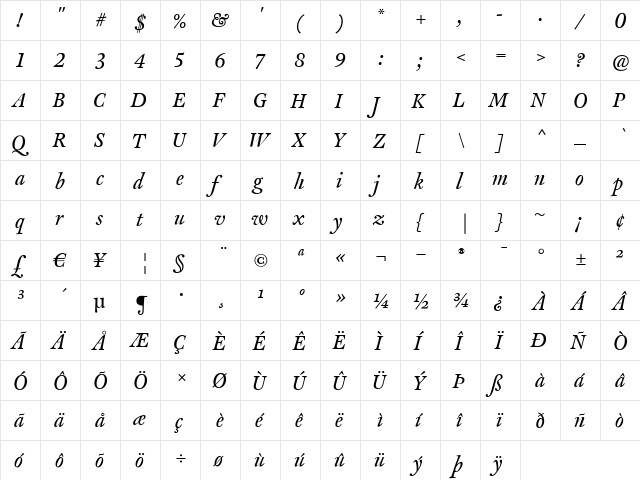
CliffordEighteen Italic
Italic · Akira Kobayashi, . Published by FontShop International. FontFont Release  ·
Design Context for CliffordEighteen Typeface
CliffordEighteen offers clean, dependable letterforms without strong stylistic allegiance, making it a practical choice for designers who need flexibility. The dynamic lean of this cut emphasises speed and emphasis in any layout.